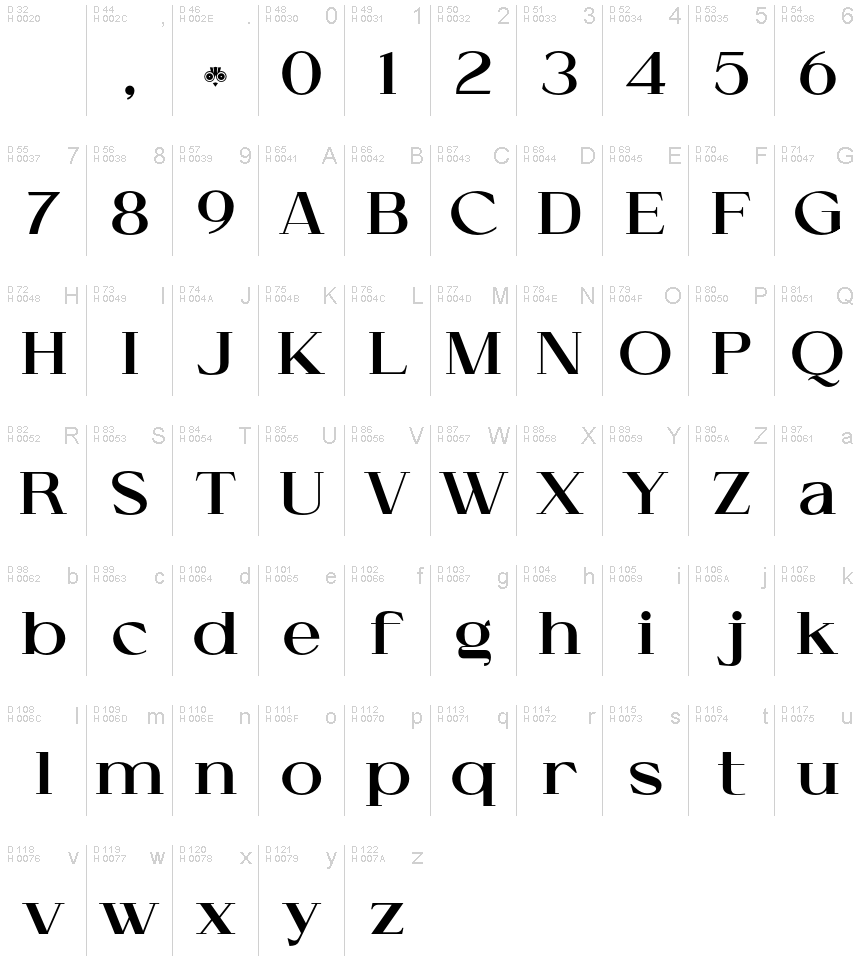
Cellofy Black SemiExpanded font from the Cellofy family is a stunning serif typeface designed by Owlking Project. This captivating font features bold, semi-expanded letterforms that exude confidence and sophistication. Its classic serif style lends a timeless elegance, making it perfect for projects that require a touch of refinement.
Ideal for headlines, logos, and branding materials, Cellofy Black SemiExpanded font offers a striking balance of modern charm and traditional grace. Available as a free font for personal use, it's an excellent choice for designers seeking to enhance their creative projects. Don't miss the opportunity to download and explore this distinctive typeface to elevate your design work with its unique aesthetic appeal.
Cellofy Black SemExp